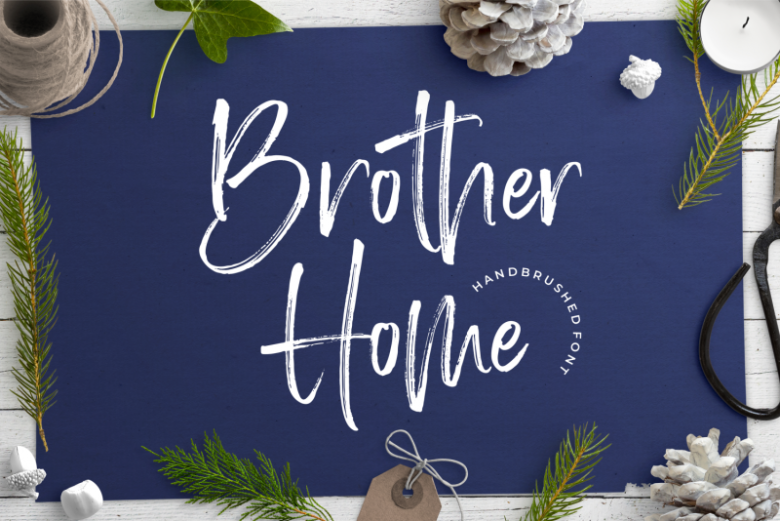
Brother Home Brush Font
Introducing! Brother Home Brush Font A font that you were meant to find. A charming handwritten brush font that will bring your designs far more attractive.